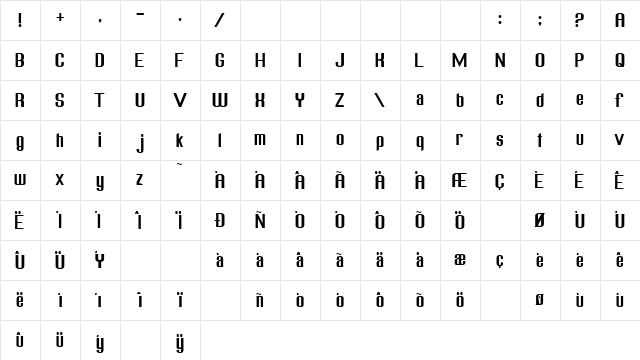
Freak out, Go bananas Normal
Design Context for Freak out, Go bananas Typeface
Freak out, Go bananas offers clean, dependable letterforms without strong stylistic allegiance, making it a practical choice for designers who need flexibility.